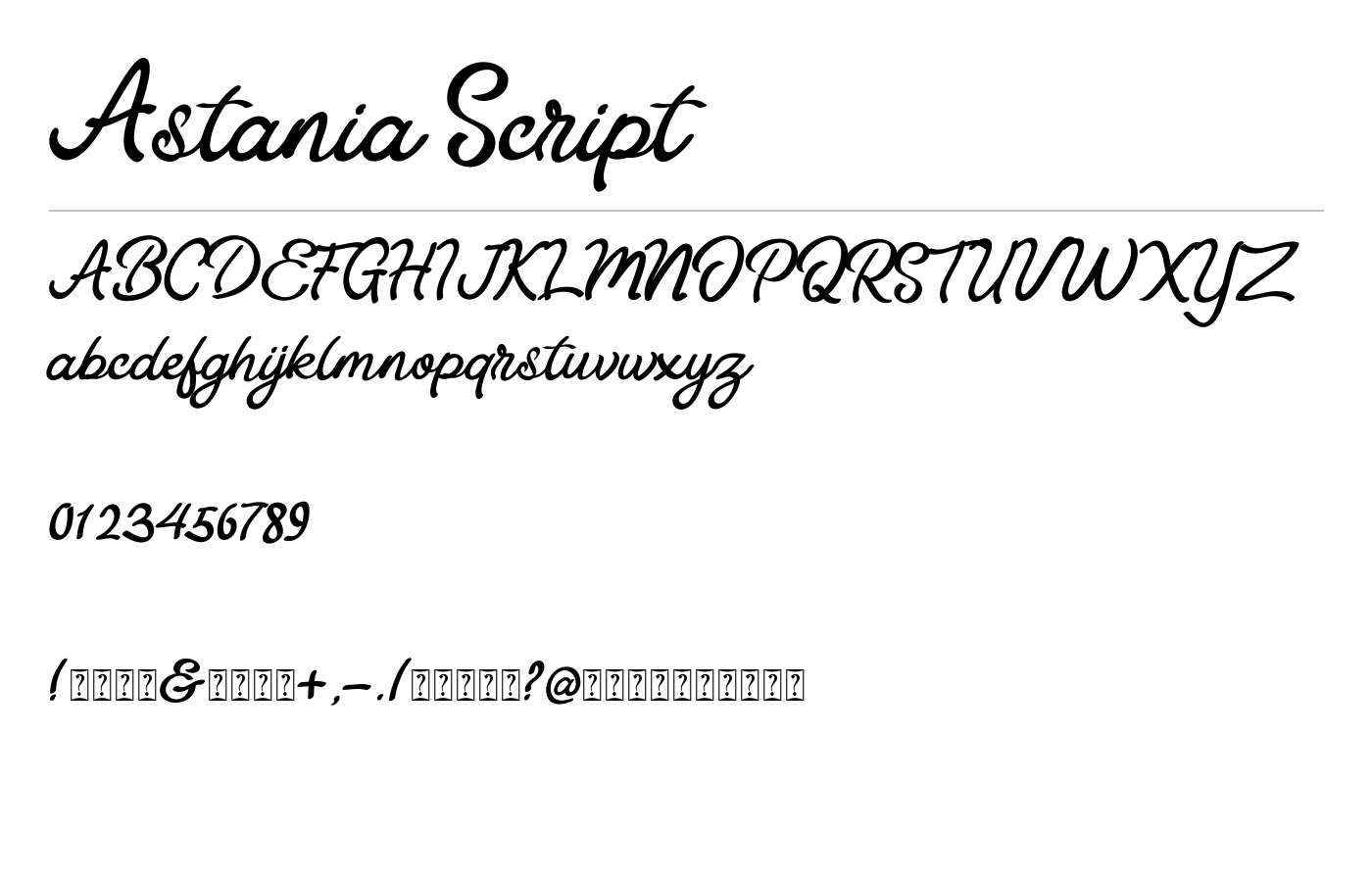
Aspania Script is a graceful and flowing script font characterized by smooth, connected letterforms with a casual elegance. Its moderate weight and moderate x-height make it versatile for both display and body text, while the slightly playful curves lend it a friendly, approachable personality fitting for branding, invitations, and editorial projects seeking a handwritten charm. This font works beautifully where a warm, personal touch is desired without sacrificing readability or style.
Astania Script Font